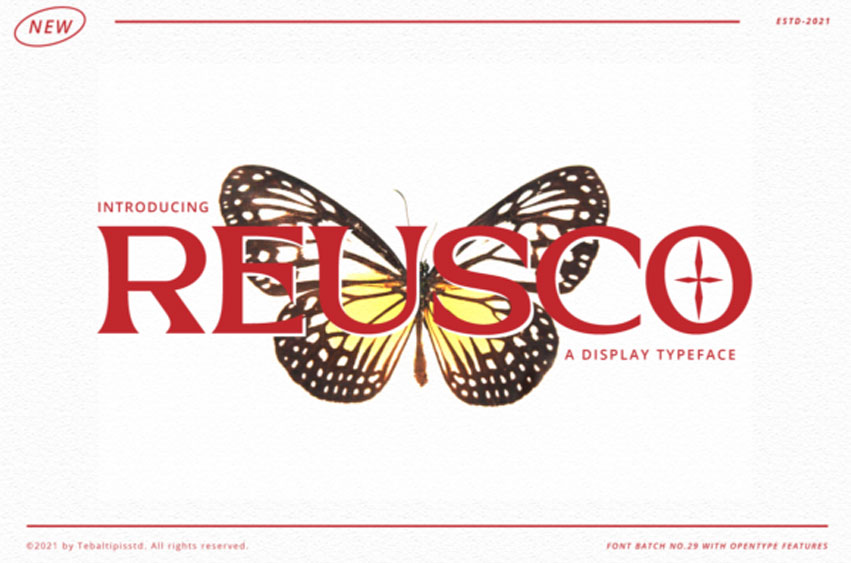
Reusco Font is a modern display font that will help you create the perfect typography design. It is great for your upcoming projects such as luxury logo and branding, classy editorial design, woman magazine, cosmetic brand, fashion promotional, art gallery branding, museum, historical of architectural, boutique branding, stationery design, blog design, modern advertising design, card invitation, art quote, home decor, book/cover title, special events, and more.